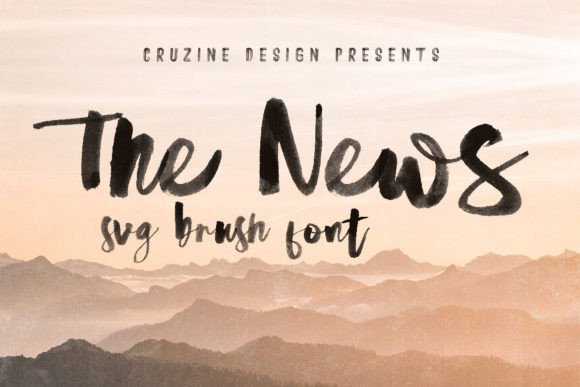
Introducing The News Font, a captivating and versatile script font that will elevate your small display projects to a whole new level! Created by the talented minds at JumboDesign, this font is a true game-changer in the world of typography.
With its stylish and tremendous brush strokes, The News Font instantly adds a bold and eye-catching look to any project it graces. Whether you're designing a logo, creating stunning headlines, or crafting social media posts, this font is guaranteed to make a lasting impression.
Looking to make a statement and stand out from the crowd? Look no further! The News Font is bursting with energy and personality, injecting a unique and modern touch to your designs. Its thick brush strokes exude confidence and create a sense of dynamism that captivates the viewer's attention.
But what sets The News Font apart from the rest? It's the fact that it is PUA encoded, unlocking a world of possibilities for you. With easy access to all glyphs and swashes, you can effortlessly customize and personalize your designs, ensuring that each creation is one-of-a-kind.
Imagine the possibilities with The News Font – you have the power to create stunning logos that leave a lasting impression, captivating headlines that demand attention, and social media posts that stop users mid-scroll. This font is a game-changer, pushing the boundaries of creativity and unleashing your true potential.
But it doesn't stop there. The News Font is not just about aesthetics; it's about evoking emotions and connecting with your audience on a deeper level. Its captivating brush strokes evoke a sense of excitement, passion, and creativity, ensuring that your message resonates with your target audience.
Don't settle for ordinary fonts when you can have extraordinary. The News Font is the best font for small display projects, and it's time for you to experience its magic. Elevate your designs, captivate your audience, and leave a lasting impression with this exceptional script font.